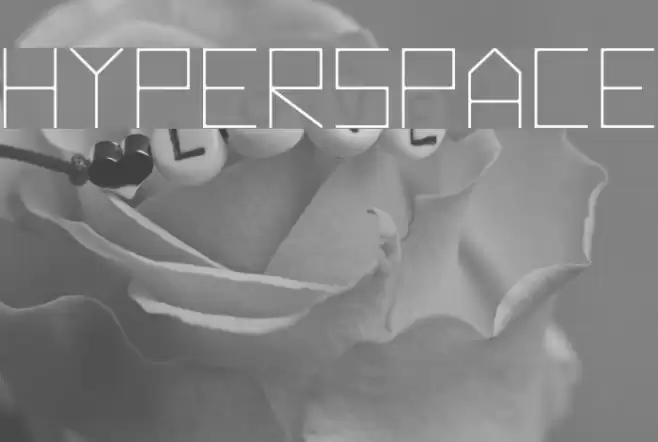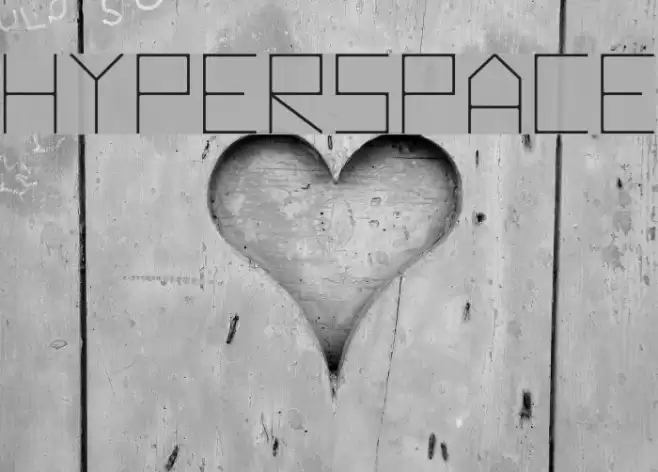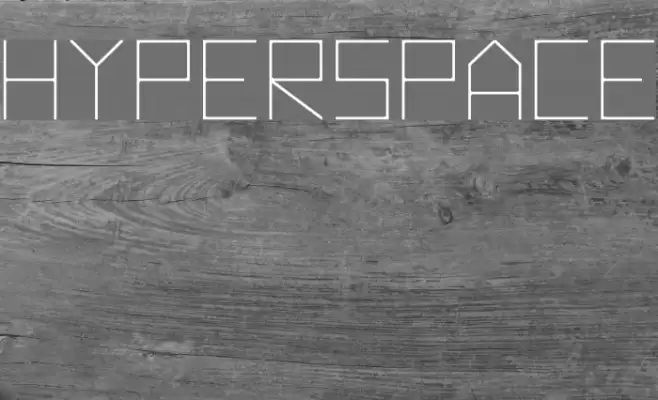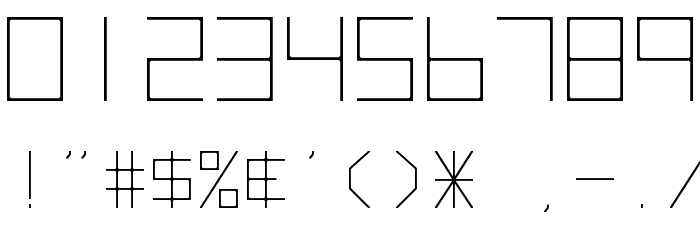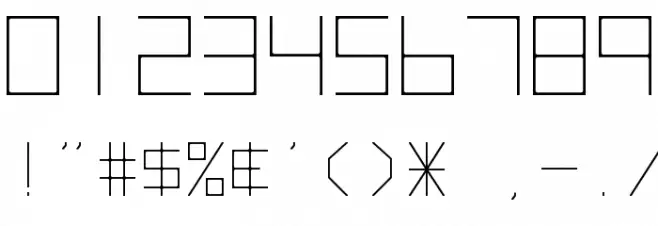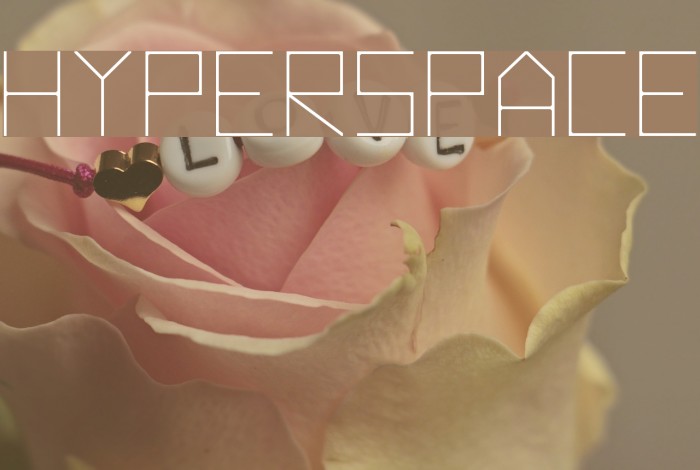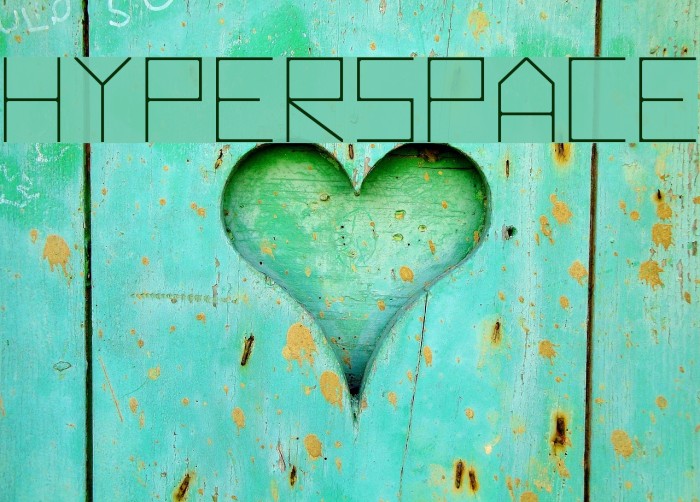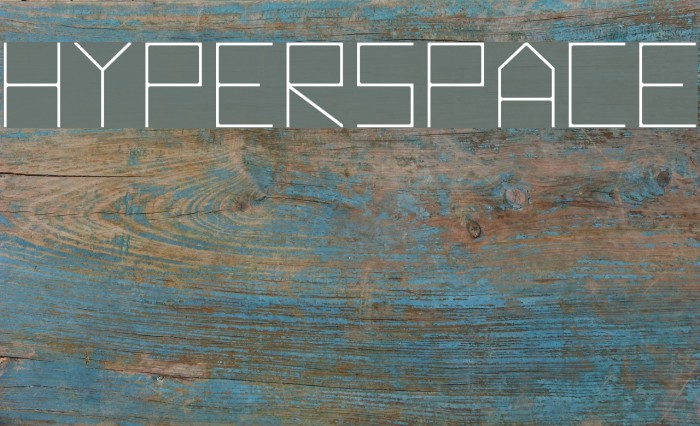
Hyperspace Font
Hyperspace Description
This font features a futuristic and geometric design, characterized by its angular and linear construction. Each character is composed of straight lines and sharp angles, giving it a distinctly modern and technical appearance. The uppercase and lowercase letters maintain a consistent style, with a uniform stroke width that emphasizes clarity and precision. The numerals and special characters follow the same design principles, ensuring a cohesive look across all glyphs. This font's minimalistic and structured form makes it ideal for projects that require a contemporary and tech-savvy aesthetic.
A futuristic, geometric font with angular lines and a modern aesthetic from Futuristic fonts.
- Proposed Projects: Ideal for technology branding, sci-fi movie posters, video game interfaces, and modern architectural designs.